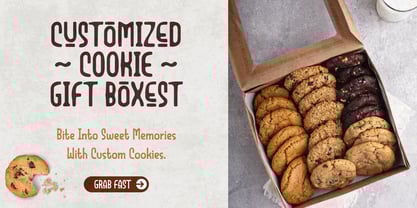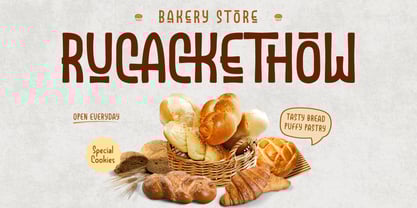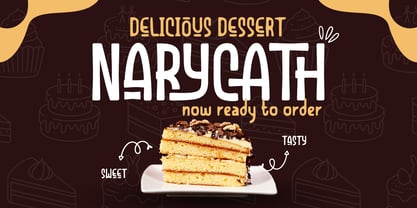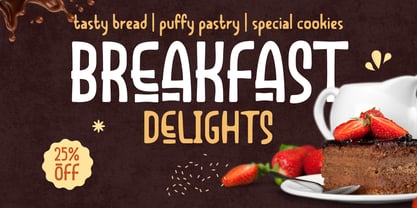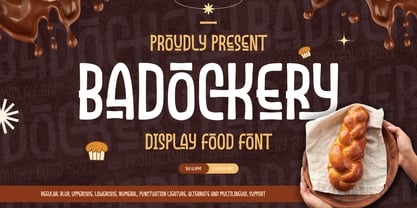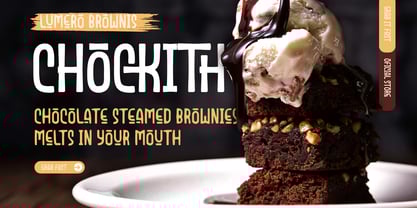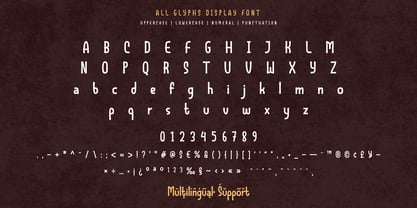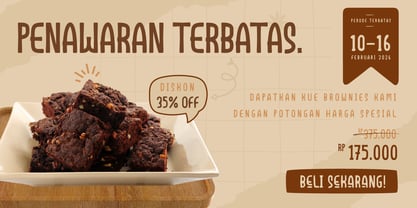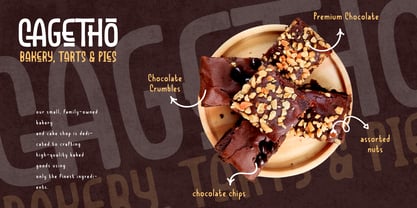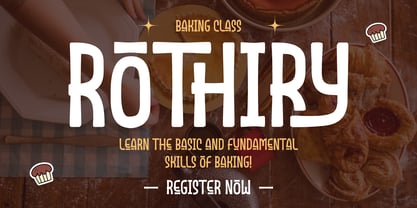
Badockery
by Trabas Kriya
The Badockery Font Family was designed by Murozakul Akhsan and published by Trabas Kriya. Badockery contains 2 styles and family package options. More about this family
Badockery is a sweet and savory display font, perfectly baked for bakery and food-themed designs. With its chunky, soft letterforms and playful personality, this font brings a handcrafted charm that instantly evokes the warmth of fresh pastries, cozy cafes, and artisanal bakeries. Ideal for cake shop logos, bread packaging, dessert menus, or social media graphics for food brands, Badockery adds a friendly and flavorful touch to any visual.
Whether you're designing labels for homemade treats or creating signage for a bakery storefront, Badockery delivers the perfect balance of boldness and approachability. Its unique style captures the joy of baking and the delight of indulgence — making your brand feel as inviting as a warm croissant on a Sunday morning.